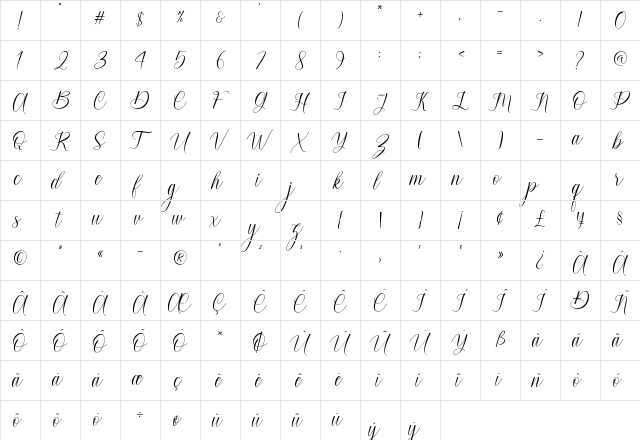
Honeylove Regular
| Designer | (MJB Letters). 2020. (Muhammad Mujibulloh) |
Design Context for Honeylove Typeface
Honeylove is a composed and adaptable typeface that performs quietly and consistently across a wide range of design contexts.